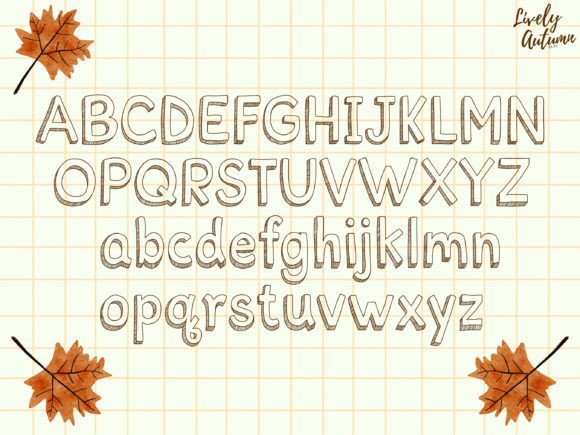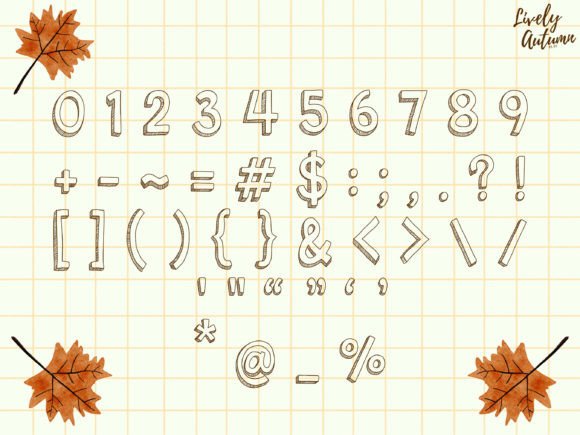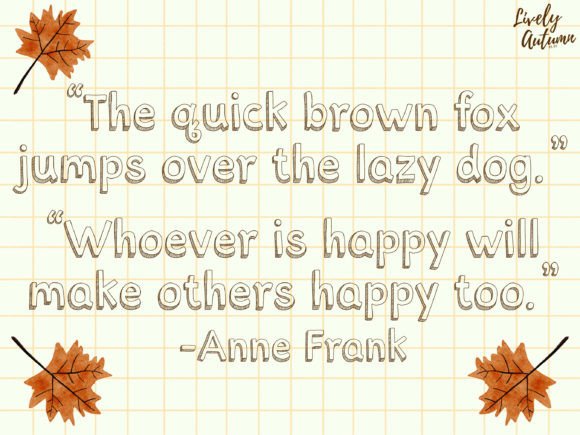
Introduction to Maple Font
Have you ever found yourself rummaging through your creative stash, desperate for the perfect font to bring your latest project to life? It’s that moment of frustration, when all you need is the right design resource to spark inspiration and get your creative juices flowing. For designers like you, the search for that elusive perfect font can be a tedious task, but what if I told you that there’s a game-changing font that’s sure to become your go-to companion?
Enter Maple Font, a bold, chubby sans serif handwritten font that’s perfect for your personal projects and various creative endeavors. Whether you’re crafting invitations, designing posters, creating social media graphics, or even working on a journal, Maple Font is the ideal choice for adding a touch of personality to your work.
Key Features of Maple Font
- High-quality design resource ideal for creative projects, with a clean and modern aesthetic.
- Features a transparent background, allowing for easy layering and customization in design compositions.
- Available in 5 different weights, from Light to Bold, providing versatility for various design applications.
- Designed with a high resolution of 300 DPI, ensuring crisp and clear display in print and digital formats.
- Perfect for use in logos, branding materials, and other design elements where a clean and sophisticated look is desired.
Honest Review: Maple Font
I recently stumbled upon the Maple Font and I must say, it’s been a game-changer for my design projects. As a designer, I’m always on the lookout for high-quality design resources that can help me elevate my work.
One of the things that I love about Maple Font is its versatility. It’s perfect for any creative project, whether it’s a logo design, branding, or even a simple text overlay. The font is available for free download, which is a huge plus in my book.
Here are some of the things that I think work well:
- High-quality design with a transparent background
- Easy to use and customize
- Perfect for a wide range of creative projects
However, I do have to mention a few limitations:
- May not be suitable for all types of designs (e.g. very bold or bright colors)
- Limited character set (but still a great starting point)
I’d say that the Maple Font is a solid addition to any designer’s toolkit. It’s free, high-quality, and easy to use. Give it a try and see how it can elevate your next design project!
Maple Font
The Maple Font is a versatile and high-quality design resource that can be used in various creative projects. It’s perfect for designers looking for a clean and elegant font to enhance their designs.
To get the most out of the Maple Font, use it on a transparent background to create a subtle and elegant look. You can also experiment with different font sizes and colors to create a unique design.
The Maple Font is perfect for creating invitations, business cards, and other print materials. You can also use it in digital designs, such as social media graphics and presentations.